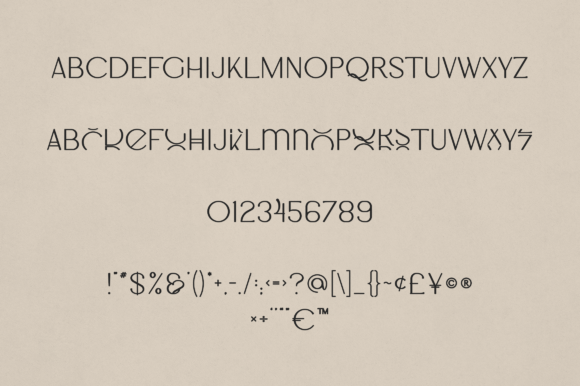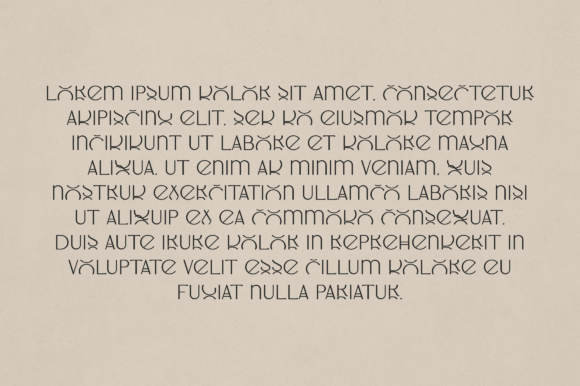
The Designer’s Delight: Ariana Font
I still remember the time I was working on a branding project for a luxury home goods company. My client wanted a font that exuded elegance and sophistication, but I was struggling to find the perfect fit. That’s when I stumbled upon Ariana Font, and it was love at first sight! 💫 In this article, I’ll share my experience with this stunning sans serif display font and explore its features, uses, and alternatives.
- ✨ Elegant and versatile design that’s perfect for a wide range of projects
- ✅ Highly legible, even at smaller sizes
- 💥 Unique character set with OpenType features and stylistic alternates
- 🎨 Works beautifully with both light and dark backgrounds
While Ariana Font is an excellent choice, there are a few things to keep in mind: 🤔
- ⚠️ Some users may find the font a bit too condensed for body text
- ⚠️ Limited availability of Cyrillic and non-English characters
The Story Behind Ariana Font
Ariana Font was designed by a team of typographers who wanted to create a font that would be both elegant and versatile. Inspired by classic sans serif fonts, they added a modern twist with unique character shapes and OpenType features. The result is a font that’s perfect for a wide range of creative projects.
Q: What type of projects is Ariana Font best suited for?
Ariana Font is perfect for branding projects, home-ware designs, product packaging, magazine headers, and more. Its elegant and versatile design makes it a great choice for any project that requires a touch of sophistication.
Q: Is Ariana Font available in different weights or styles?
Yes, Ariana Font comes in a range of weights and styles, making it easy to use for both headlines and body text.